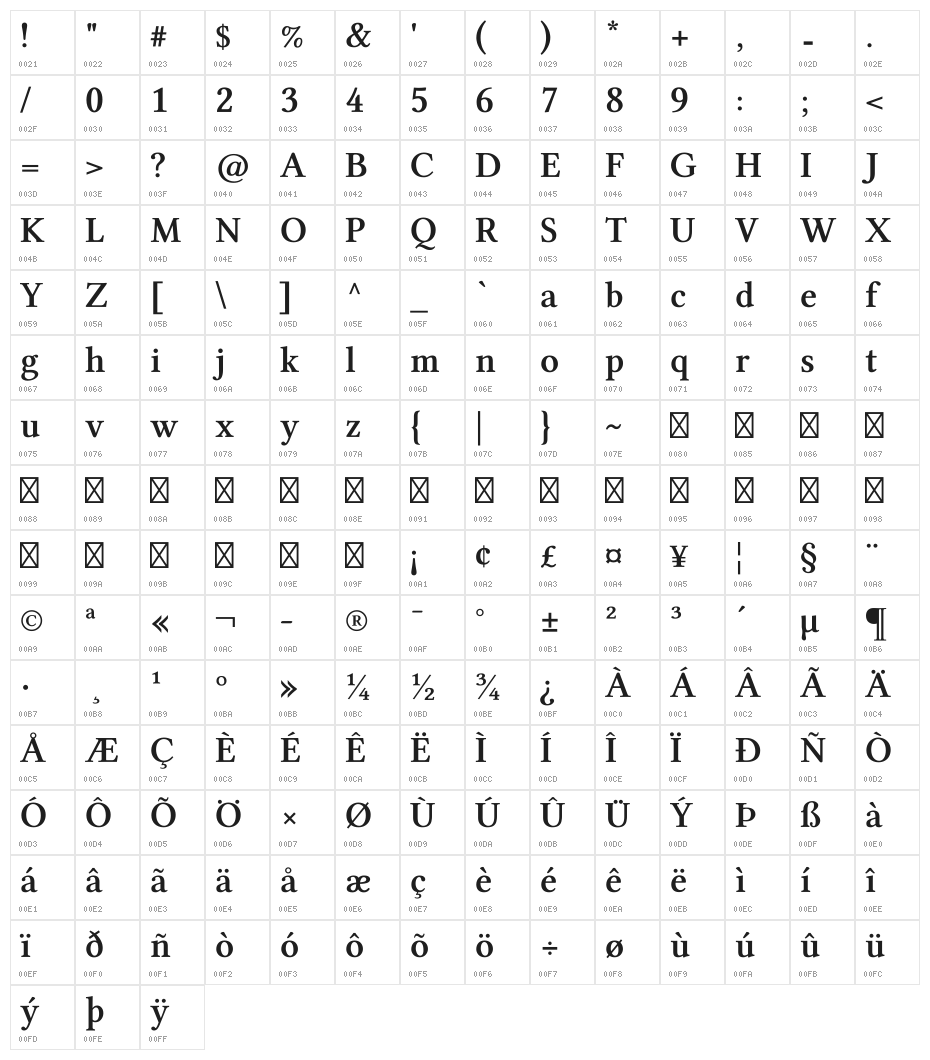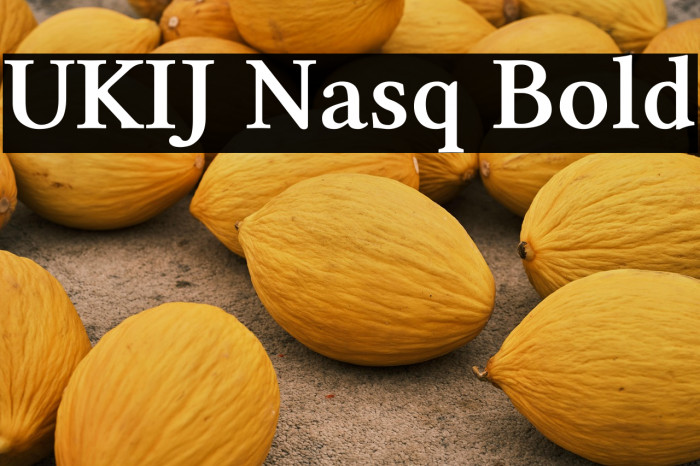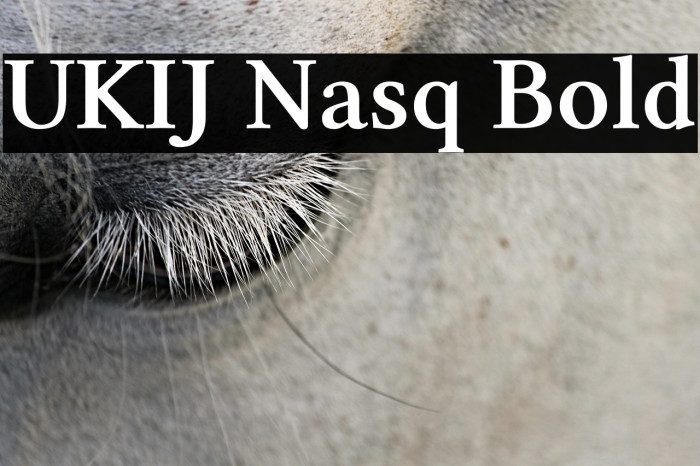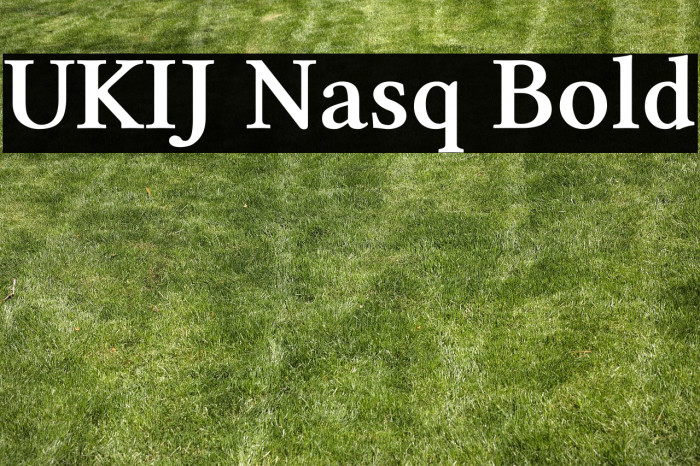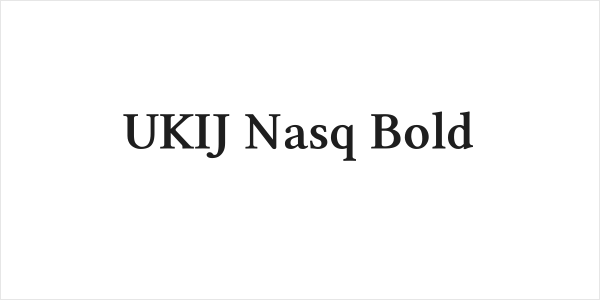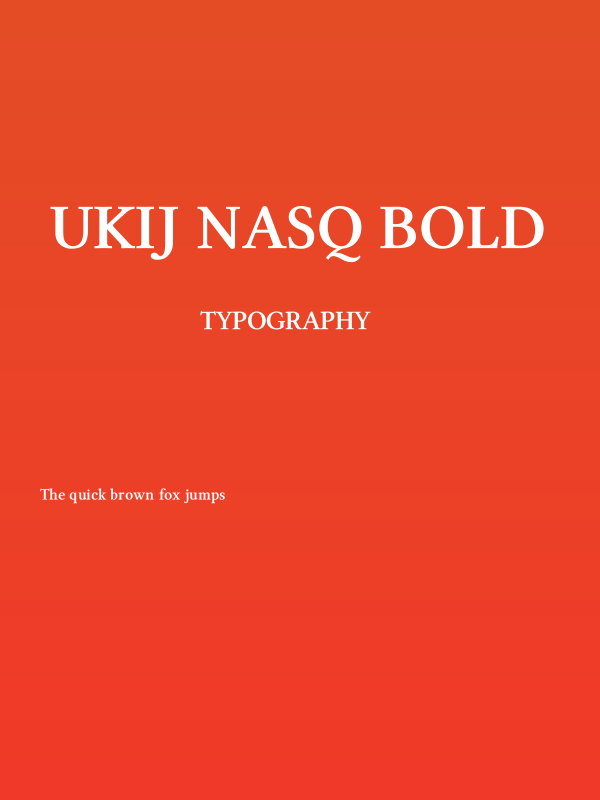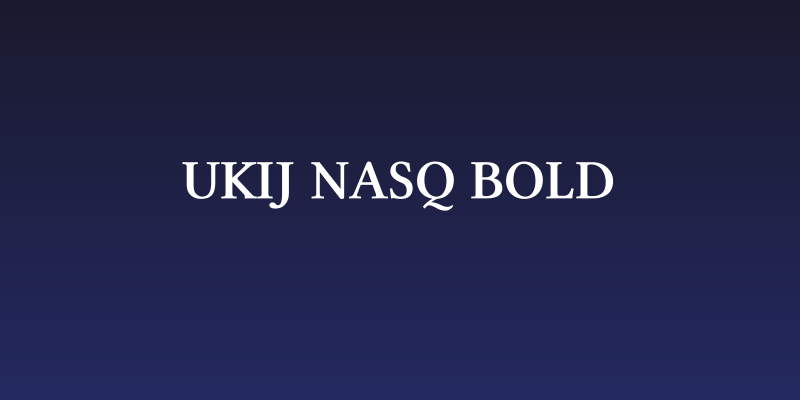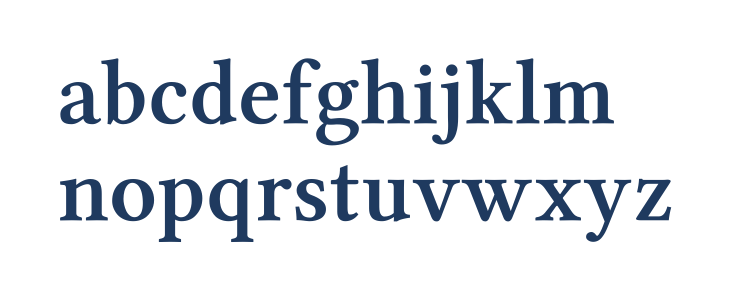
UKIJ Nasq Bold Font
UKIJ Nasq Bold Description
This font exhibits a classic serif style with strong, bold strokes that convey a sense of tradition and authority. The serifs are pronounced, adding a touch of elegance and readability, making it suitable for both print and digital media. The uppercase letters are well-proportioned, while the lowercase letters maintain a consistent height, ensuring uniformity across text. The numerals are clear and distinct, enhancing legibility. Special characters are well-integrated, providing versatility for various applications. Overall, this font combines traditional aesthetics with modern functionality.